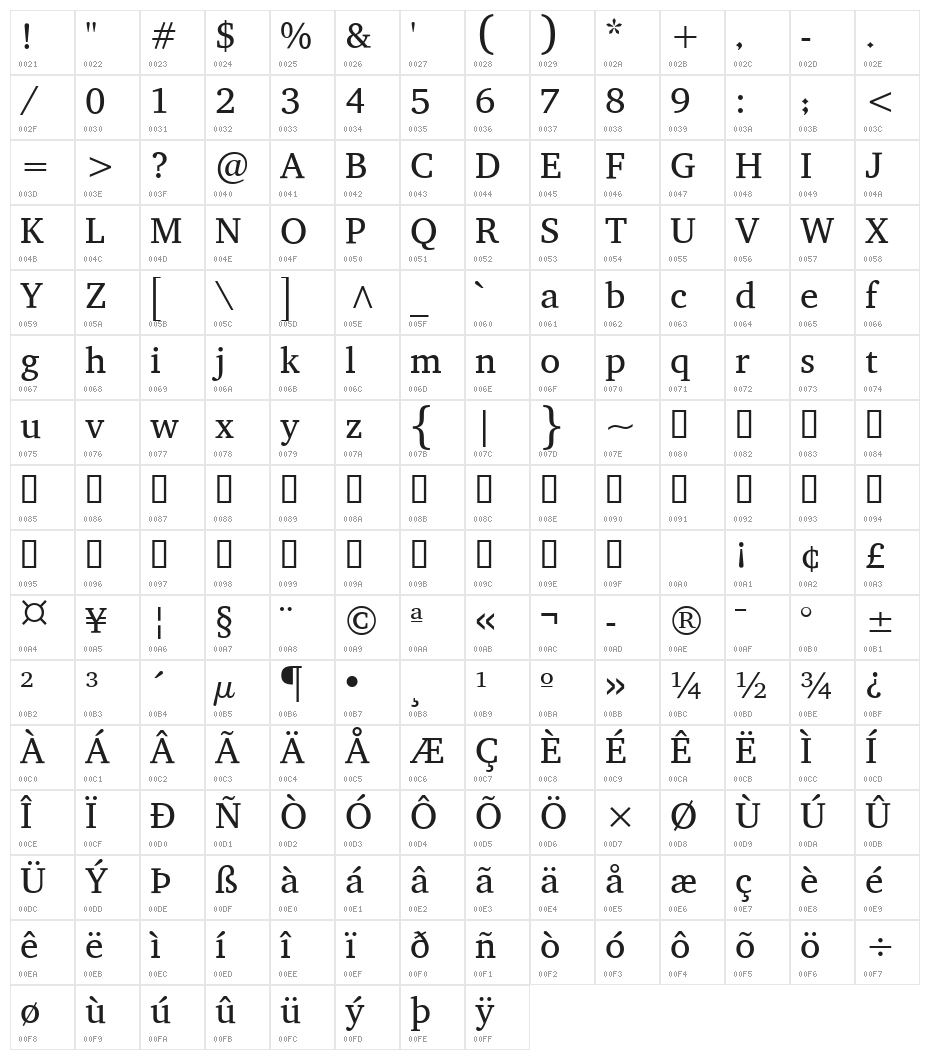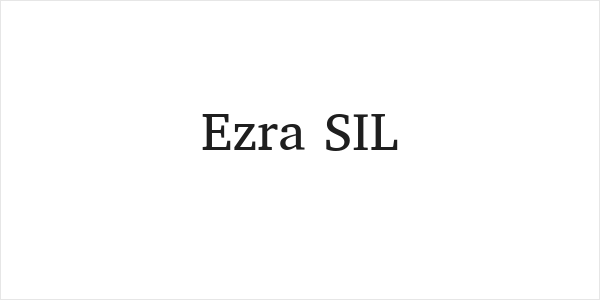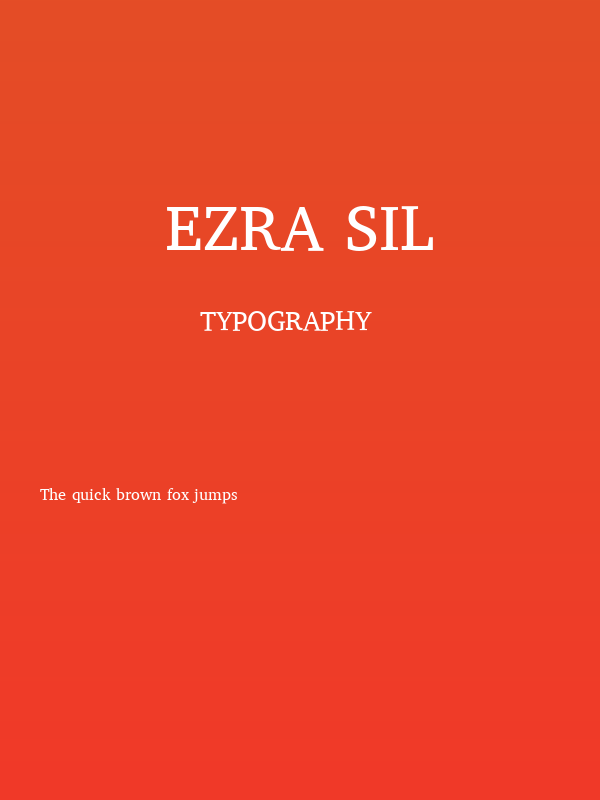
Ezra SIL Font
Ezra SIL Description
This font features a classic serif style with a strong presence and clear readability. The uppercase letters are bold and commanding, while the lowercase letters maintain a consistent and harmonious flow. The numerals are well-proportioned, ensuring clarity and balance. Special characters are distinct and well-integrated into the overall design. The font's traditional serif elements make it suitable for formal and professional settings, offering a timeless and elegant appearance.
| Use Case | Body text, Headlines, Formal documents |
| Proposed Projects | Ideal for book typesetting, formal documents, academic papers, and branding materials that require a traditional and authoritative look. |